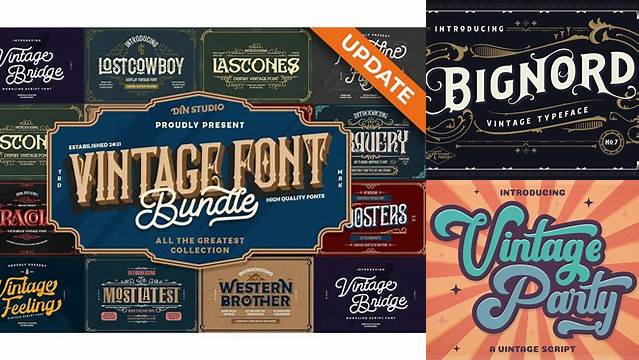
Free Vintage Fonts: Best Downloads For A Retro Look
Hey guys! Are you on the hunt for some awesome vintage fonts to give your projects that perfect retro vibe? Look no further! In this article, we're diving deep into the world of vintage fonts and where you can find the best ones for free. We’ll cover everything from the different styles of vintage fonts to how to use them effectively in your designs. So, buckle up and let's get started!
1. What are Vintage Fonts?
Let's kick things off by understanding what exactly vintage fonts are. Essentially, these are typefaces that evoke the styles and aesthetics of past eras, typically ranging from the late 19th century to the mid-20th century. Think of the roaring twenties, the mid-century modern era, or even the groovy 70s – each period has its unique typographic flair.
Vintage fonts often feature characteristics like serifs, ornate details, and a handcrafted feel. They can add a touch of nostalgia, elegance, or ruggedness to your designs, depending on the specific style you choose. When you're looking to infuse your work with a sense of history or a classic touch, vintage fonts are definitely the way to go. They bring a certain charm and authenticity that modern fonts sometimes can’t quite capture. Imagine using a vintage font for a wedding invitation, giving it an elegant and timeless feel, or employing one for a craft beer label, instantly conveying a sense of tradition and quality. The possibilities are truly endless when you start exploring the world of vintage fonts.
These fonts are more than just a stylistic choice; they're a bridge to the past, each stroke and curve telling a story. Whether you’re working on branding, posters, websites, or any other creative project, incorporating vintage fonts can significantly elevate your design and make it stand out. Now, let's move on to exploring the various styles within this genre.
2. Different Styles of Vintage Fonts
Vintage fonts aren't just a single category; they come in a wide array of styles, each with its unique personality and historical context. Let's explore some of the most popular types, which will really help you get a feel for what's out there and what might suit your project best. First off, we have the Art Deco fonts. These fonts are characterized by their geometric shapes, clean lines, and overall elegant appearance. Think of the 1920s and 30s – this style was all the rage during that era, and it's perfect for projects that need a touch of sophistication and glamour. The bold and symmetrical designs make Art Deco fonts ideal for logos, posters, and invitations.
Next up are the letterpress fonts. These typefaces mimic the look of vintage printing presses, featuring slightly distressed edges and a tactile feel. They bring a sense of authenticity and craftsmanship to your work, making them a great choice for projects that aim for a rustic or handmade aesthetic. Letterpress fonts are fantastic for packaging design, branding, and anything that needs a touch of old-world charm. Then there are the script fonts, which emulate elegant handwriting styles. These can range from formal and ornate to casual and whimsical, making them incredibly versatile. Think of vintage signage, wedding invitations, or even classic book covers – script fonts can add a touch of personality and flair to your design.
Moving on, we have the sans-serif fonts, which, despite being a more modern style overall, also have vintage variations. These vintage sans-serif fonts often feature unique proportions and a slightly industrial feel, reminiscent of mid-century design. They're perfect for projects that need a clean, yet retro look, such as website headers, posters, and branding materials. And finally, there are the slab-serif fonts, known for their bold, blocky serifs. These fonts have a strong, confident presence and were widely used in advertising and signage during the 19th and early 20th centuries. Slab-serif fonts are ideal for headlines, logos, and anything that needs to grab attention. Understanding these different styles will help you choose the perfect vintage font for your project, ensuring it hits the right note and conveys the desired message.
Another excellent resource is Google Fonts. While it's known for its modern and web-friendly typefaces, Google Fonts also has a surprisingly good selection of vintage-inspired fonts. The best part about Google Fonts is that everything is completely free and easy to implement on websites, making it a go-to for web designers. Plus, the fonts are open-source, so you can use them for both personal and commercial projects without any worries. Then there's Creative Market, which offers a mix of both free and premium resources. They often have free goods bundles that include stunning vintage fonts, so it’s worth checking their site regularly. Even if you end up paying for a font here, the quality is usually top-notch, and the prices are reasonable. Don't forget about Dafont, a massive repository of free fonts contributed by designers from around the world. While the quality can vary, there are definitely some hidden vintage gems to be found here. Just be sure to check the licensing information for each font to ensure it fits your needs.
Lastly, keep an eye on individual designers’ websites and blogs. Many typographers offer free fonts as a way to promote their work, and you might just stumble upon a vintage beauty that’s perfect for your project. By exploring these resources, you'll have a fantastic collection of free vintage fonts at your fingertips, ready to add that retro touch to your designs. Remember, the key is to browse widely and download responsibly, always respecting the font licenses.
4. Top Free Vintage Fonts to Download
Alright, let's get down to specifics! You know where to find free vintage fonts, but which ones are actually worth downloading? We've compiled a list of some of the top picks to help you kickstart your collection. These fonts are not only free but also versatile and perfect for a variety of projects. First up is Playfair Display, a classic serif font that exudes elegance and sophistication. With its high contrast and graceful curves, it's ideal for headlines, titles, and anything that needs a touch of class. Playfair Display works beautifully for wedding invitations, magazine layouts, and upscale branding projects. Another fantastic option is Oswald, a vintage sans-serif font with a slightly condensed design. It has a clean, yet retro feel, making it perfect for posters, website headers, and logos. Oswald is incredibly versatile and looks great in both print and digital formats.
Another crucial aspect of web typography is font pairing. Combining a vintage font with a more modern typeface can create a balanced and visually appealing design. For example, you might pair a script vintage font with a clean sans-serif for body text, or a slab-serif with a delicate serif font. The key is to choose fonts that complement each other and create a cohesive look and feel. Website loading speed is also a critical factor to consider. Some vintage fonts, especially those with intricate details or unusual characters, can be quite large in file size. This can slow down your website’s loading time, which can negatively impact user experience and SEO. Opt for vintage fonts that are well-optimized for the web and avoid using too many different fonts on your site. Google Fonts is a fantastic resource for free, web-friendly vintage fonts. They offer a wide range of options that are easy to implement on your website, and they’re optimized for performance. Plus, Google Fonts are open-source, so you can use them for both personal and commercial projects without any licensing hassles. Contrast is another important consideration when using vintage fonts on the web. Make sure your text has sufficient contrast with the background to ensure readability. A light vintage font on a dark background or vice versa can create a striking visual effect while still being easy to read. And finally, test your website on different devices and browsers to ensure your chosen vintage fonts render correctly. What looks great on your desktop might not look as good on a mobile device, so it’s essential to check your website’s typography across various platforms. By keeping these tips in mind, you can effectively use vintage fonts to enhance your website’s design and create a memorable online experience.